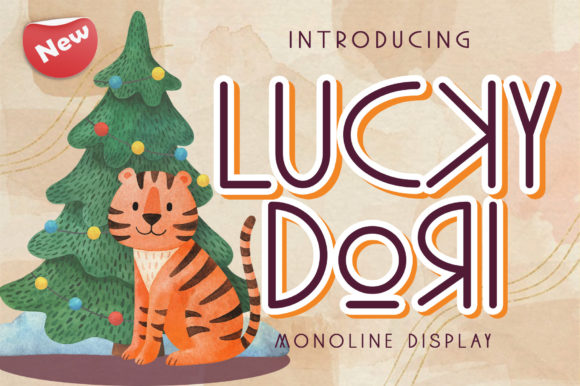
Buckle up and get ready to transform your designs with Lucky Dori, the display font that's sweeping the design world! This gem from the creative minds at isolatype is the perfect weapon in your arsenal for crafting logos that leap off the page, branding that sizzles, and quotes that resonate deep within the soul.
Picture this: Your logo, emblazoned in the bold and captivating strokes of Lucky Dori, becoming an instant icon that sets your brand apart. It's like giving your business a superhero cape, making it soar above the competition.
But Lucky Dori's superpowers don't stop there! This font is the ultimate chameleon, adapting seamlessly to any design challenge you throw its way. Whether you're crafting a minimalist masterpiece or a maximalist extravaganza, Lucky Dori has the versatility to elevate your creations to new heights.
And the best part? You don't need to be a design wizard to harness the magic of Lucky Dori. Its PUA encoding makes accessing all the glyphs and swashes a breeze. It's like having a secret code that unlocks a treasure trove of design possibilities.
So, why settle for ordinary when you can have extraordinary? Unleash the power of Lucky Dori today and watch your designs transform into works of art. It's the font that turns heads, sparks conversations, and leaves a lasting impression. Don't let your designs fall flat; give them the Lucky Dori advantage and let them shine brighter than ever before!